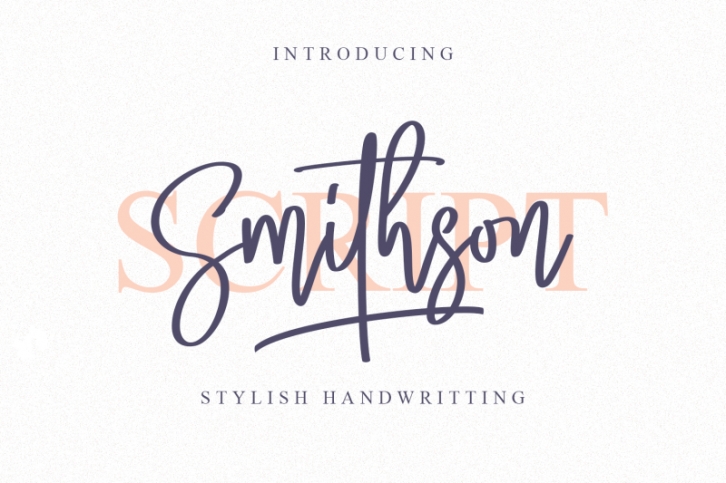
Smithson is an exquisite handwritten font, masterfully designed to become a true favorite. It maintains its classy calligraphic influences while feeling contemporary and fresh. This font is PUA encoded which means you can access all glyphs and swashes with ease!